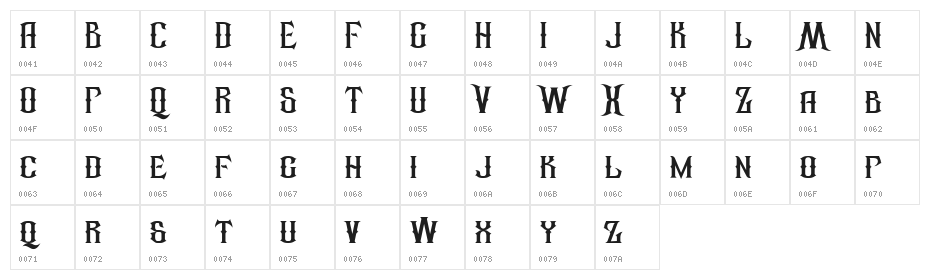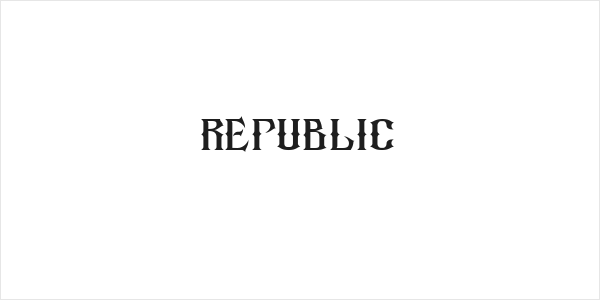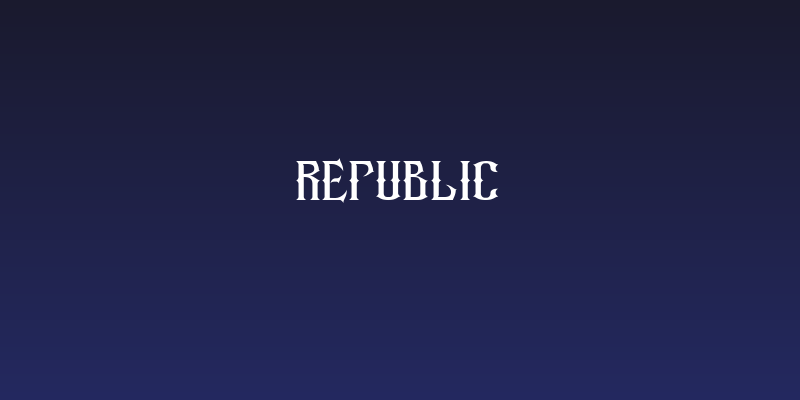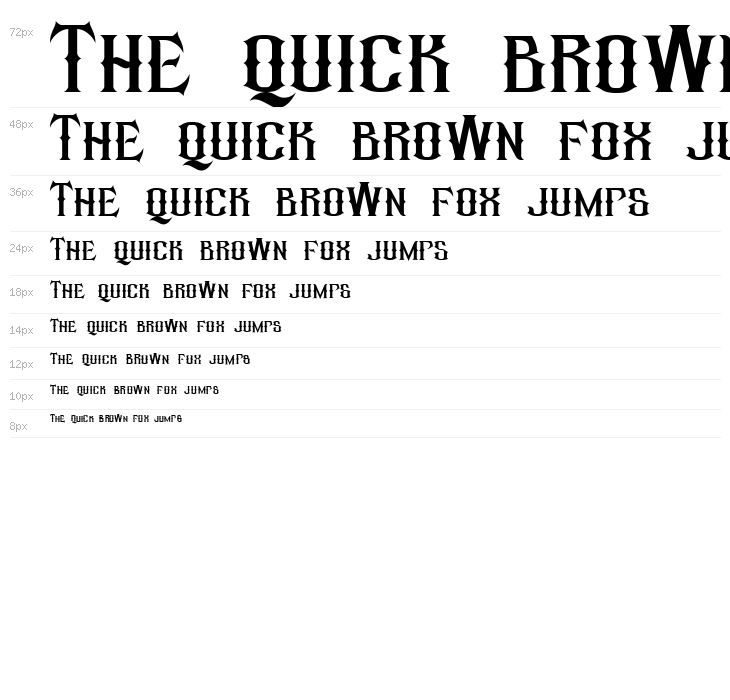
republic Font
republic Description
This font features a bold and striking design reminiscent of traditional Blackletter styles, characterized by its sharp, angular lines and dramatic flourishes. The uppercase letters exhibit a strong presence with their intricate detailing and pointed serifs, creating a sense of historical elegance. The lowercase letters maintain a consistent style, offering a cohesive look throughout the typeface. This font's unique aesthetic is ideal for projects that require a touch of vintage or gothic flair, making it suitable for branding, posters, and decorative purposes.
| Use Case | Logos, Headlines, Decorative |
| Proposed Projects | Ideal for branding, posters, decorative designs, and projects requiring a vintage or gothic flair. |